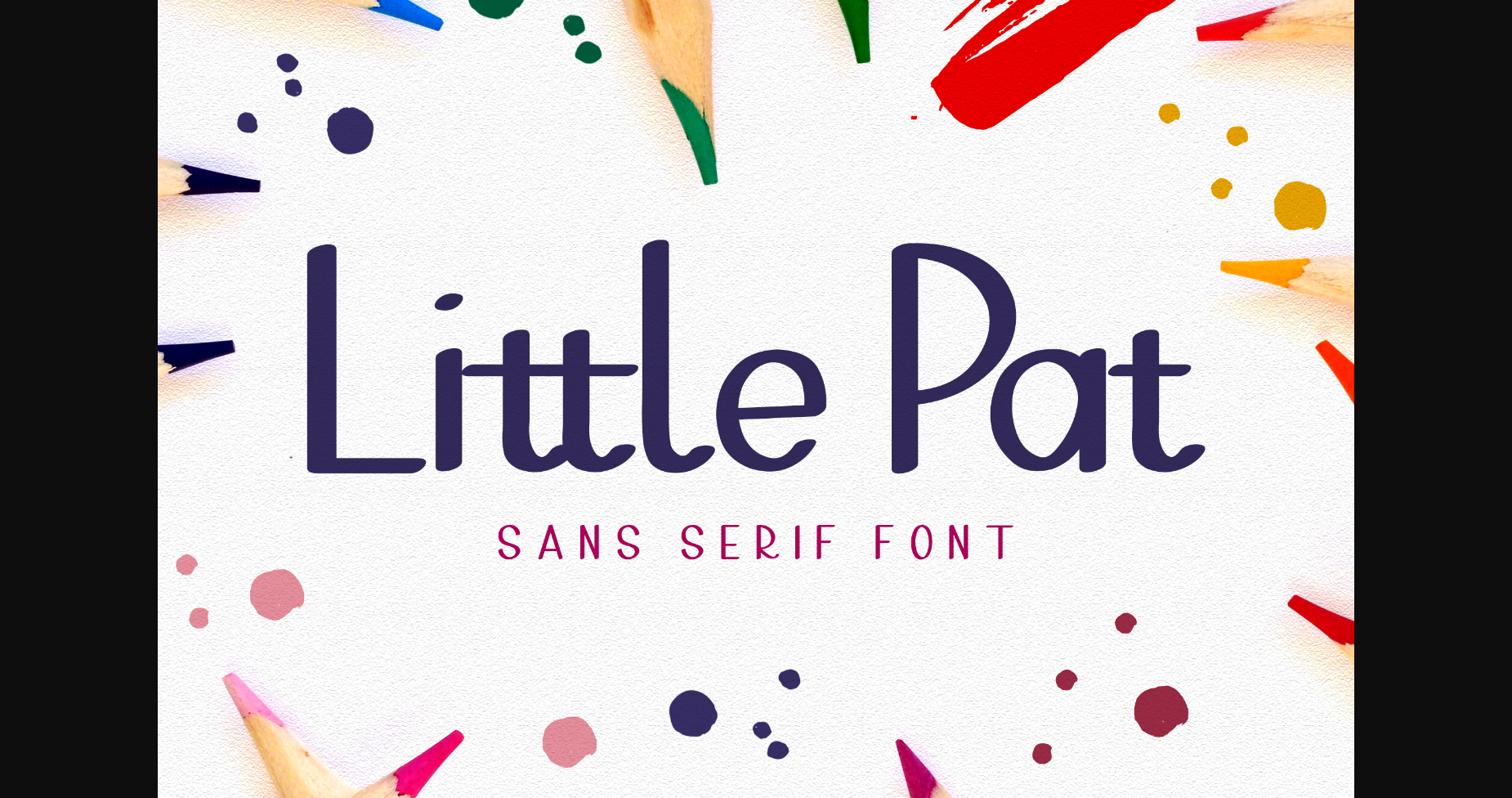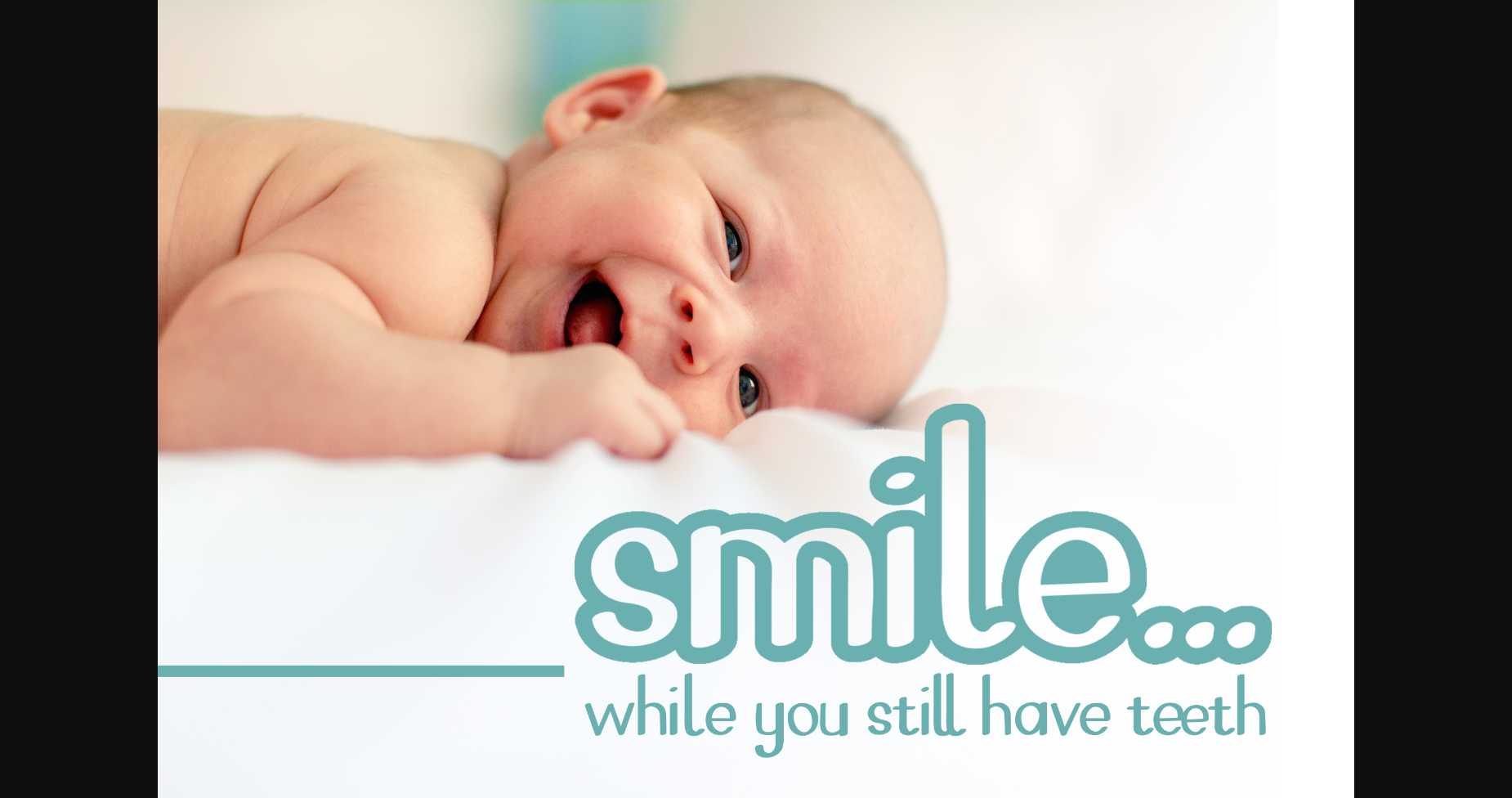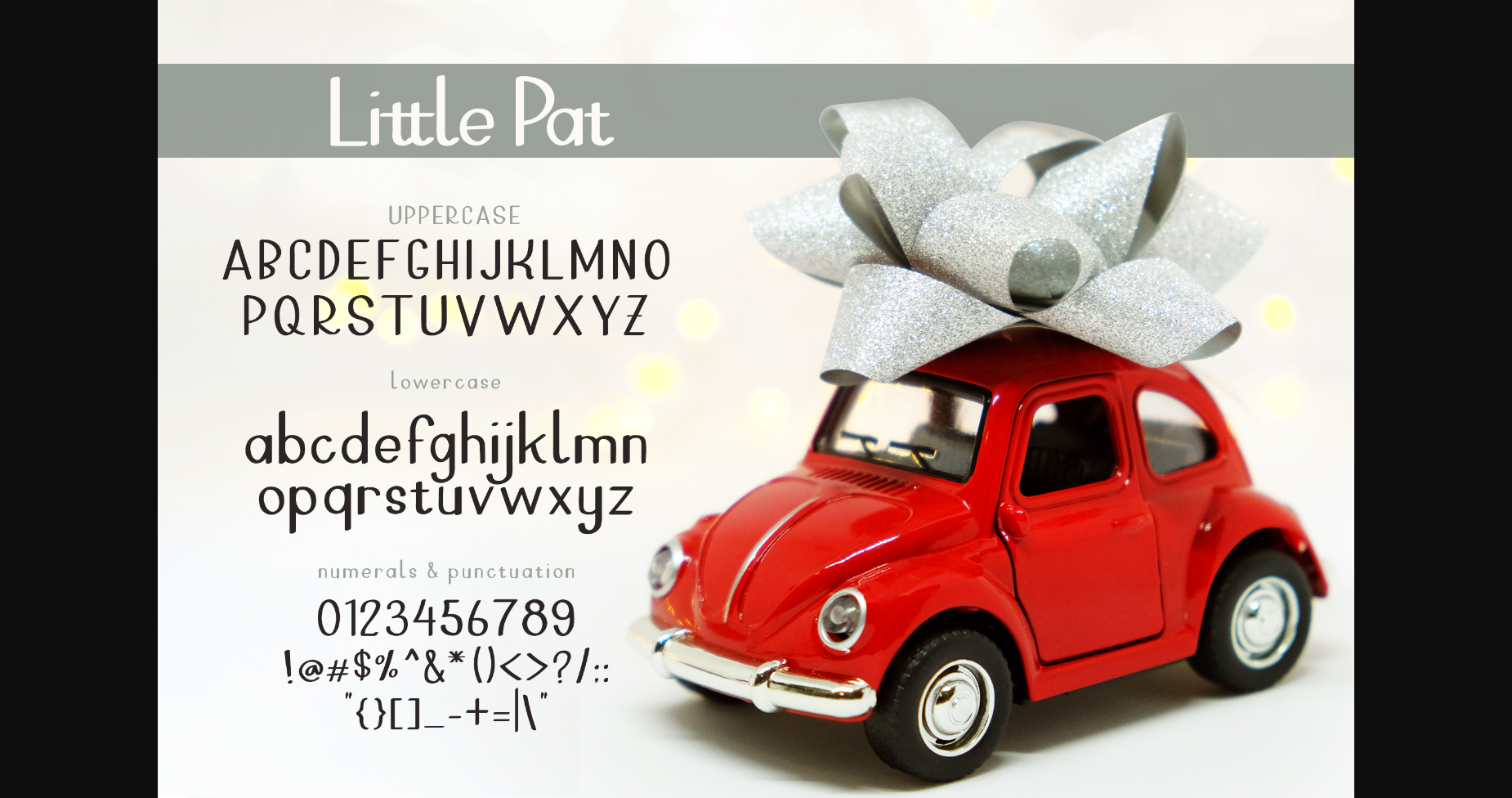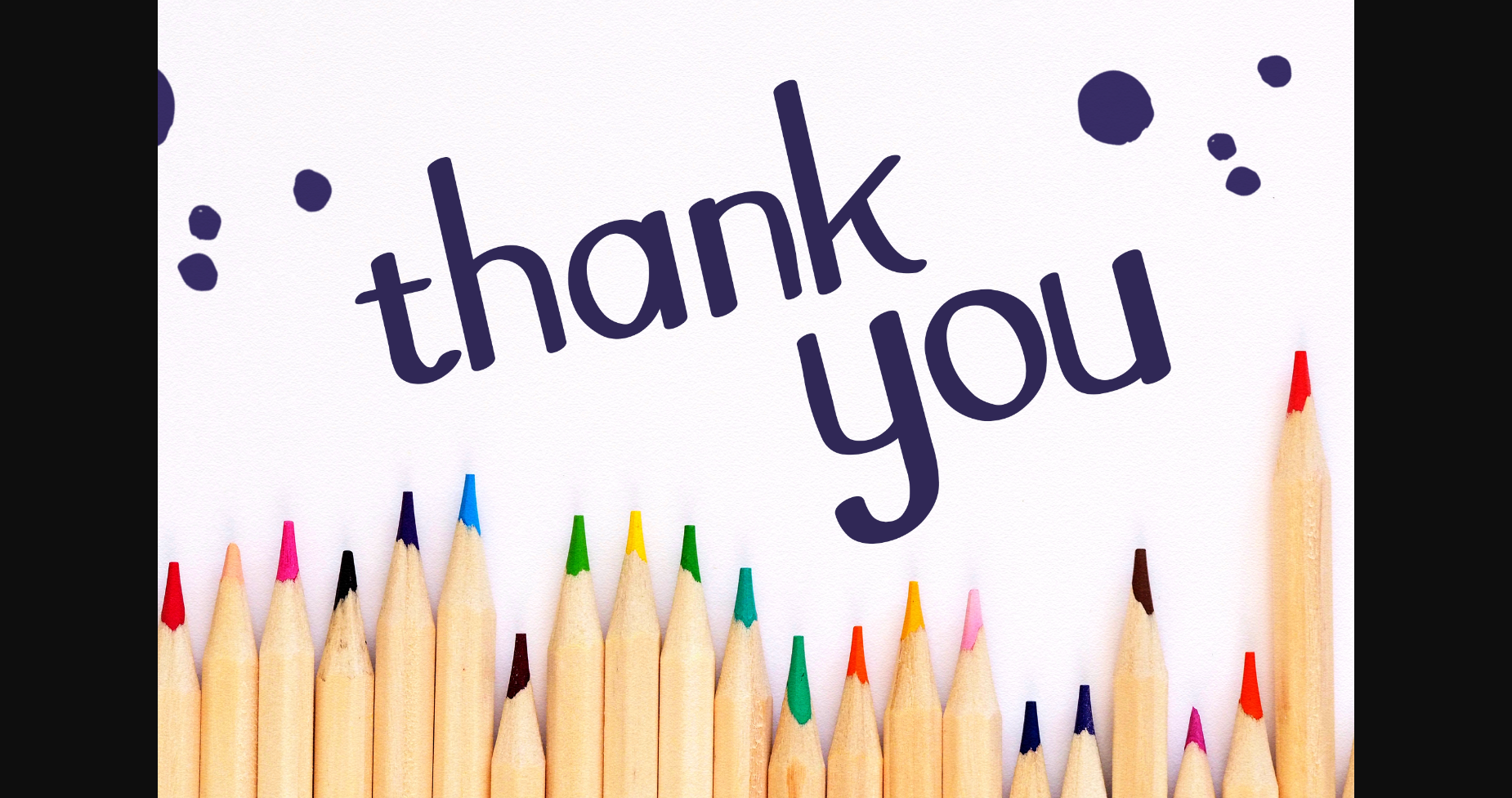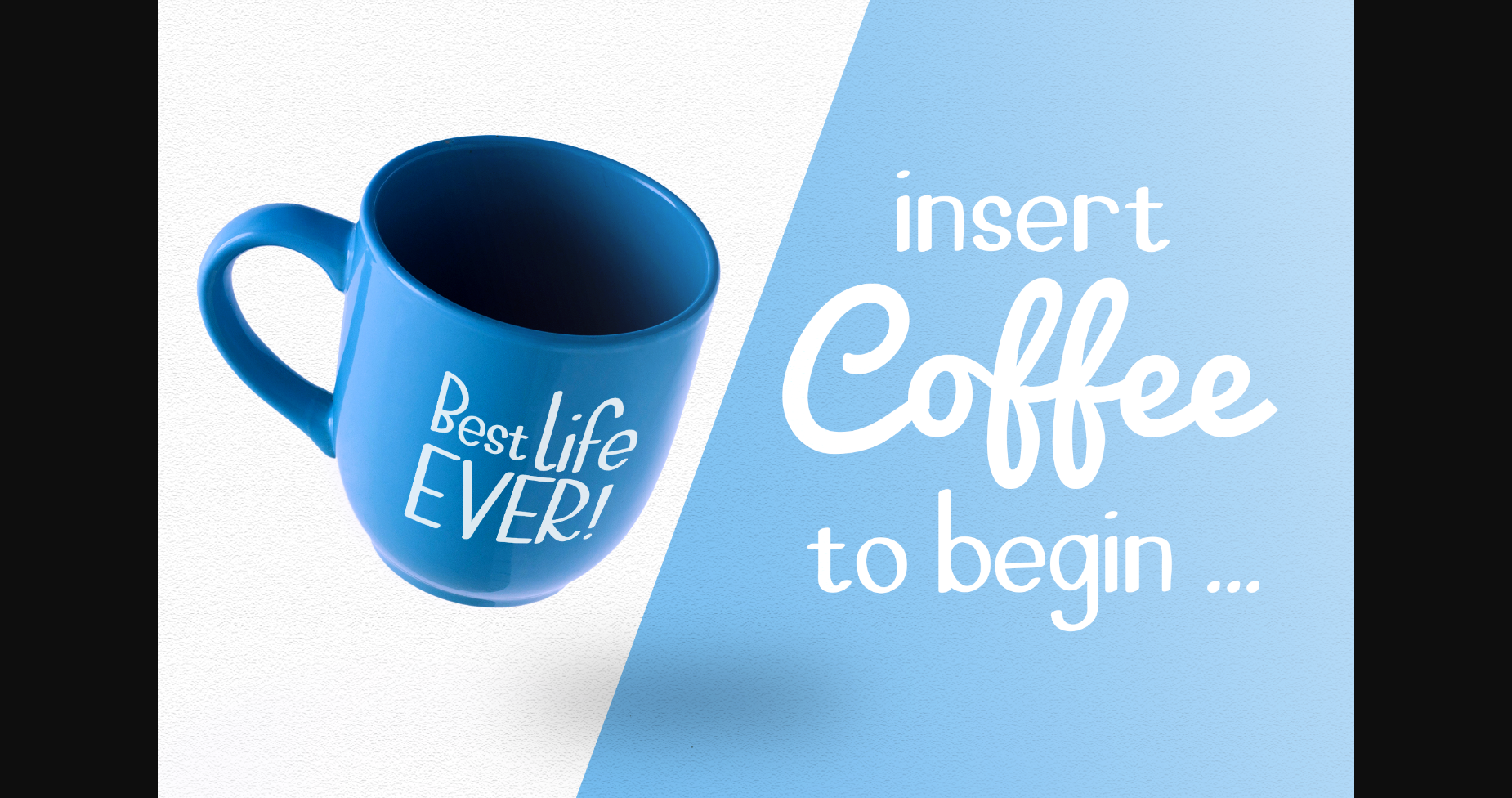
About Little Pat 1 Font
Little Pat is a simple and adaptable sans serif font. It will elevate a wide range of crafting ideas, from cards to branding, labels, and much more.